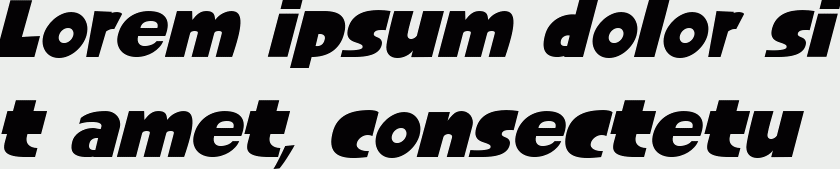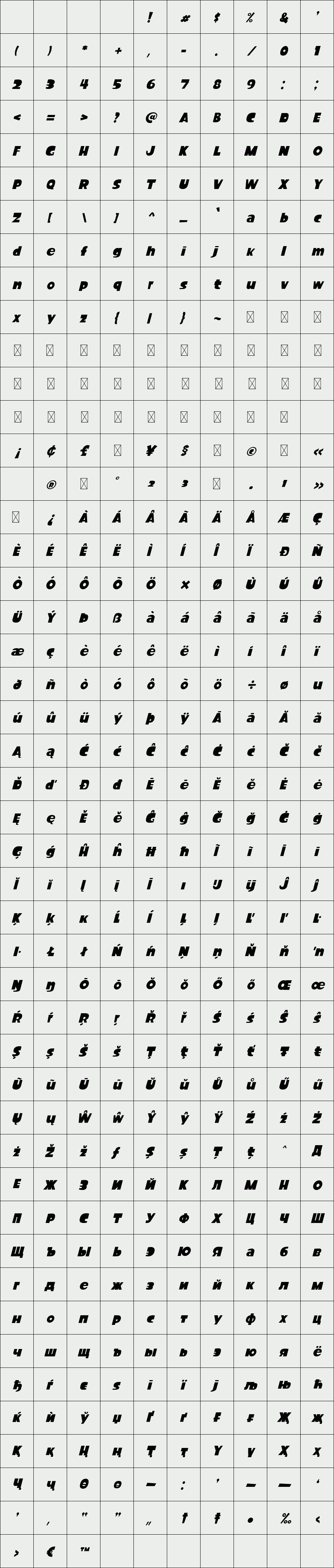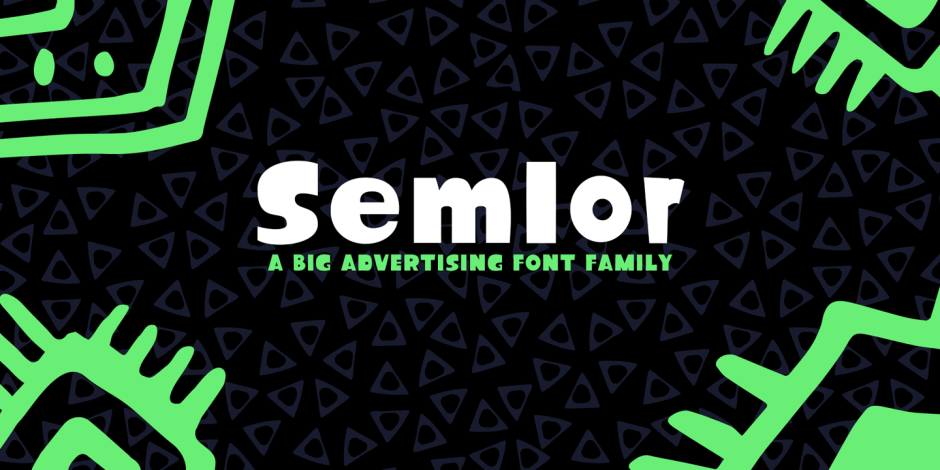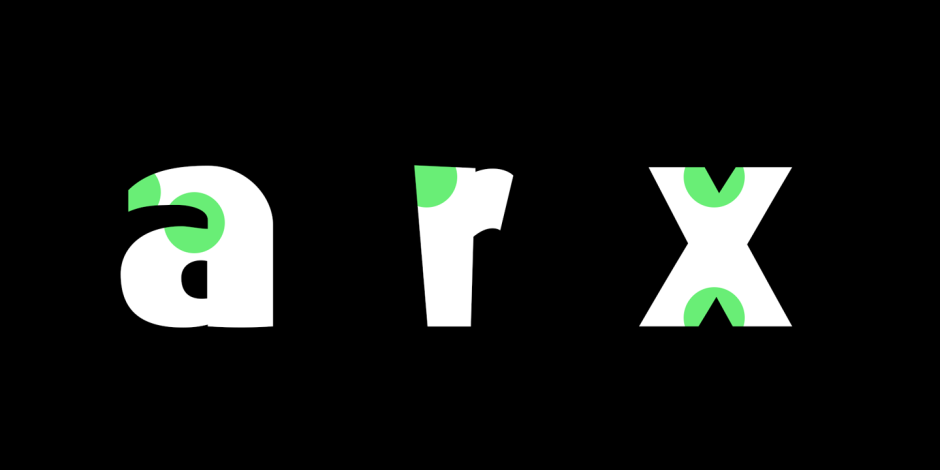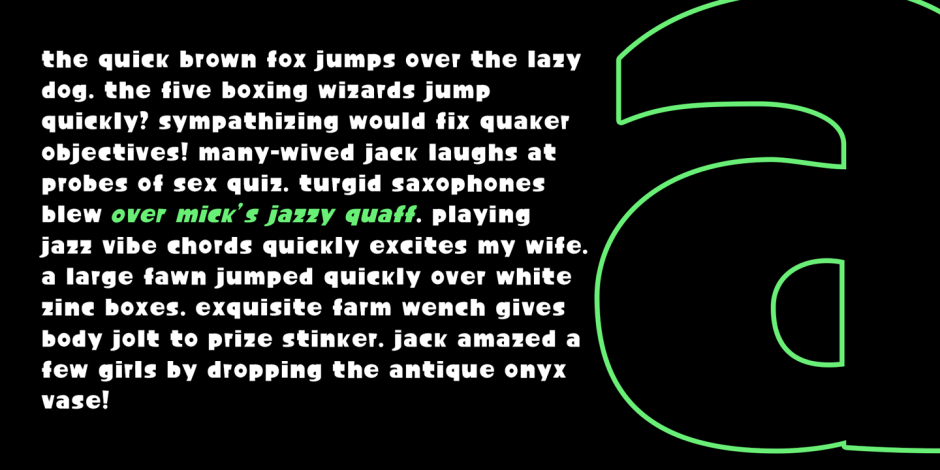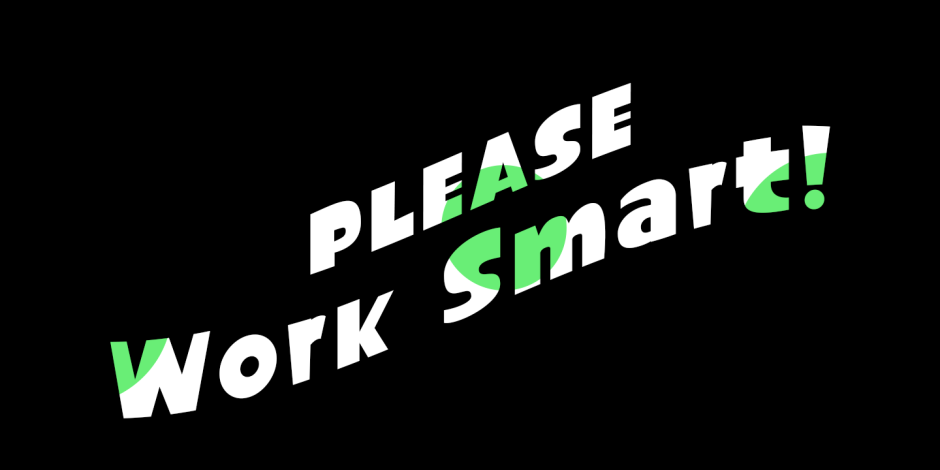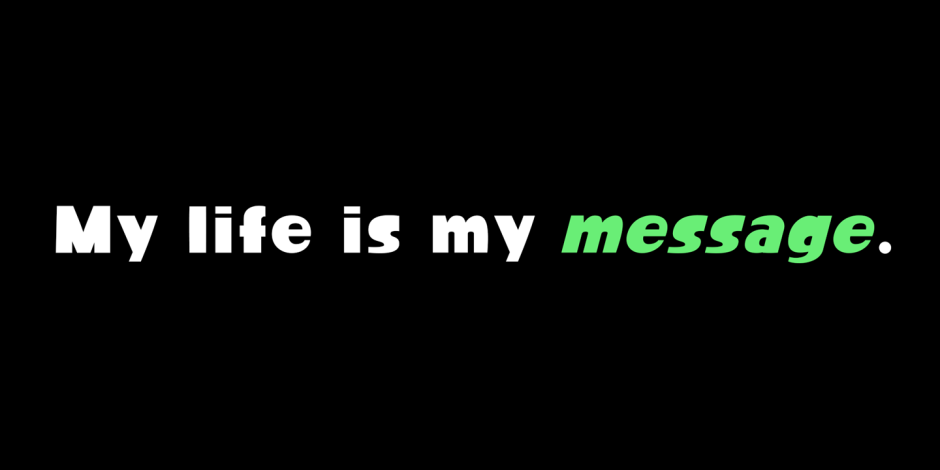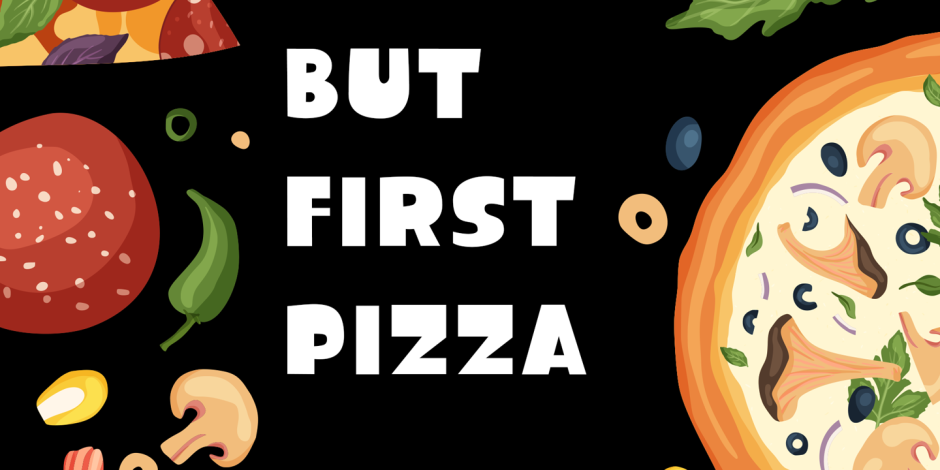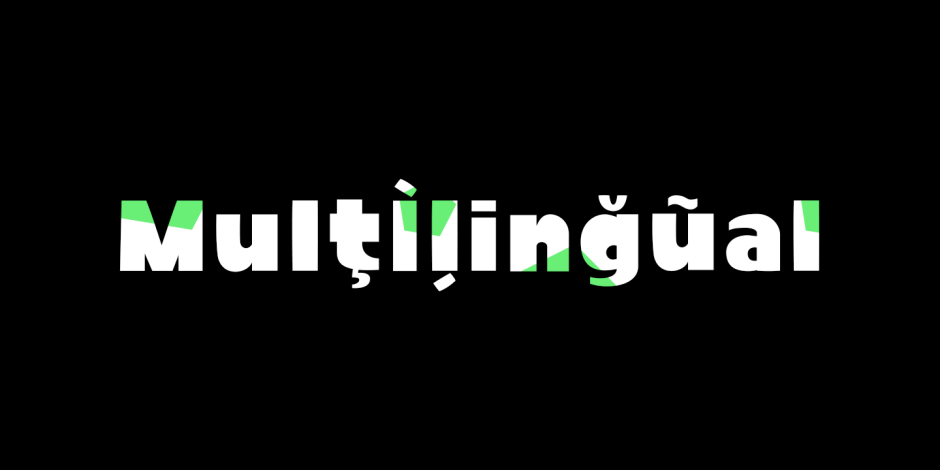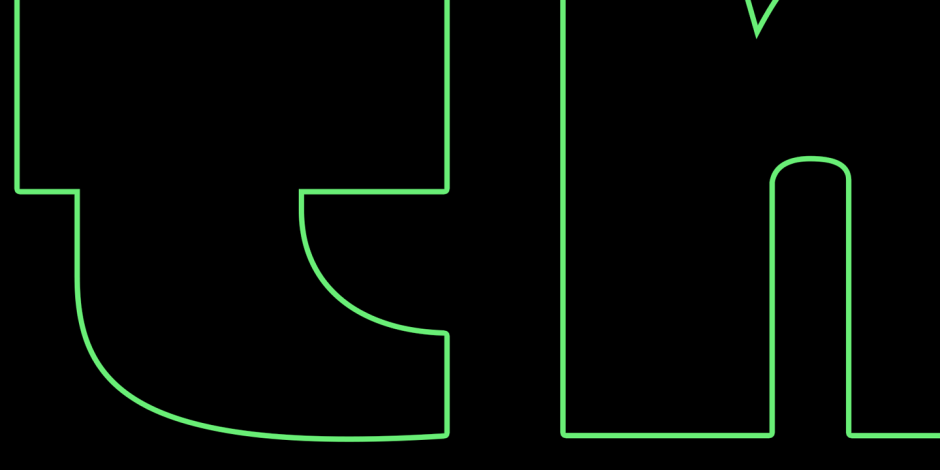
Semlor Font Family
Semlor is a great display comic advertising big font, coming in regular and italic style.
This font has multi-lingual and Cyrillic support. We hope you enjoy using this font.
Designer: listener® foundry